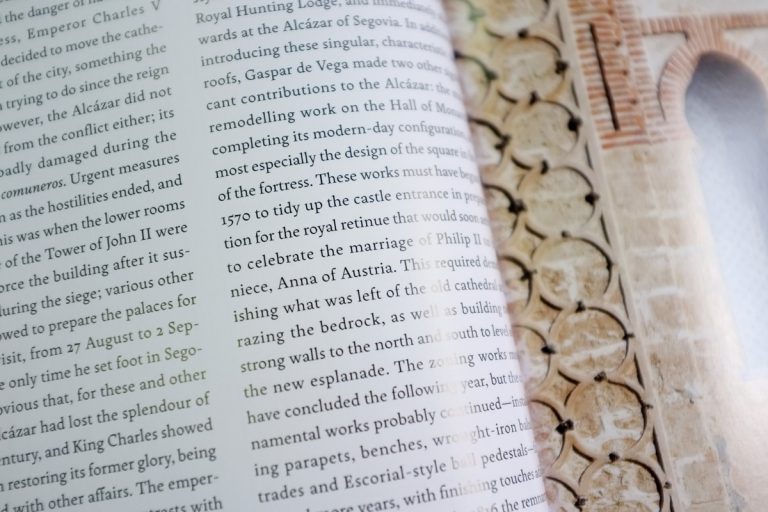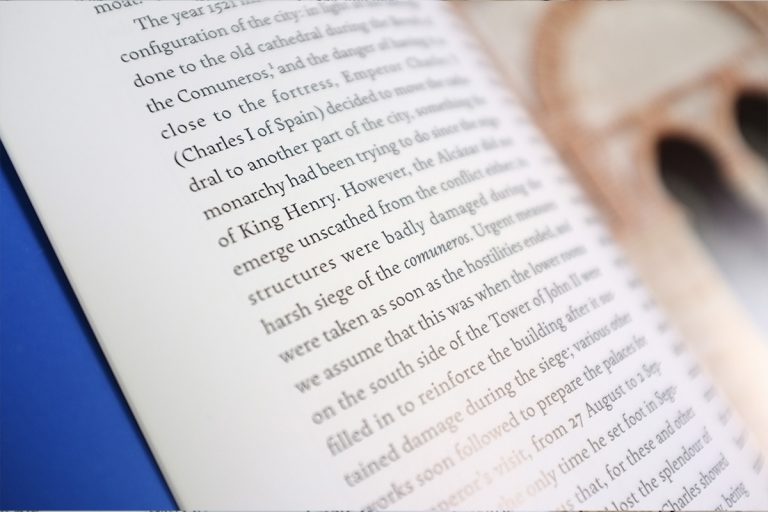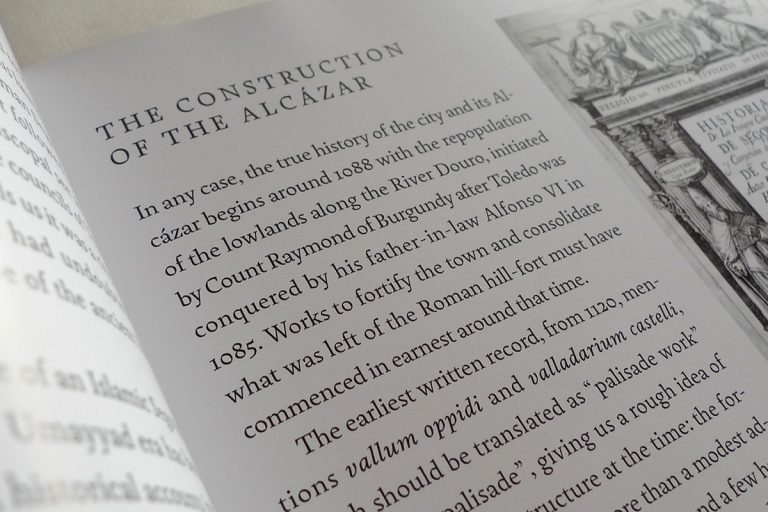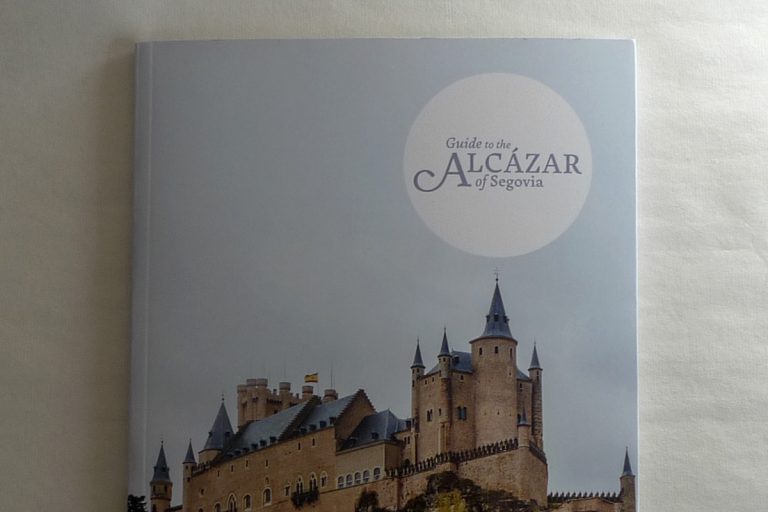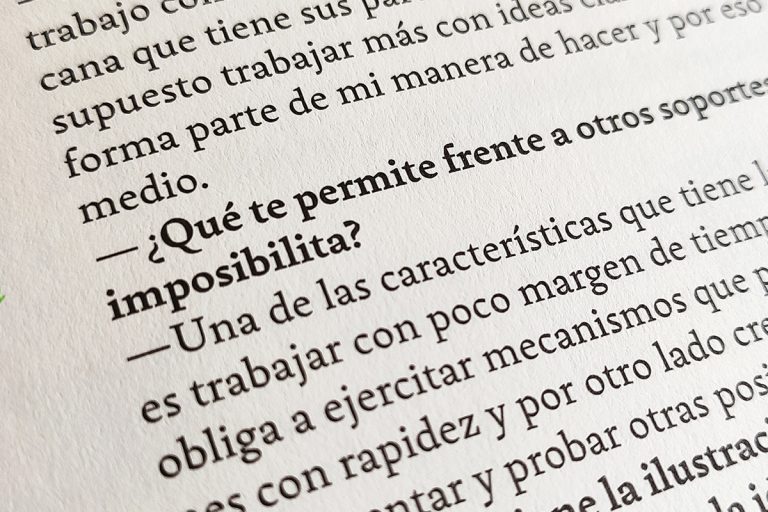
Pliego (Spanish for Spread) has rough angular shapes with unexpected details, but its proportions are classic and help to set running texts with an even and readable paragraph texture. This contrast is visible used at big sizes, where Pliego can show off its witty and fearless personality, with lots of ornamental features.
To cover today’s needs, Pliego includes five weights with matching italics. Designed and engineered for continuous reading, the Book, Regular and Medium weights will perform at their best under 14 points. However, don’t be scared to use for headlines and titles: because of its quirky details and calligraphic flavour, Pliego’s personality is accentuated when enlarged.
With an extensive Latin character set, Pliego covers a wide amount of Latin-based languages, including Latin Plus encoding and Vietnamese support.
Every font includes small caps, ligatures, swashes, old style, lining, proportional and tabular figures, superscript, subscript, numerators, denominators, and fractions.
Pliego 5 weights + italics. 10 fonts
Glyphset 1211 glyphs
Designed by Juanjo López
Year 2018